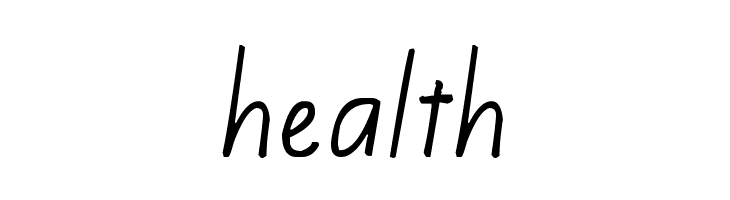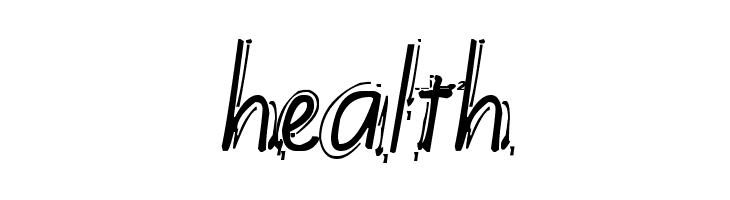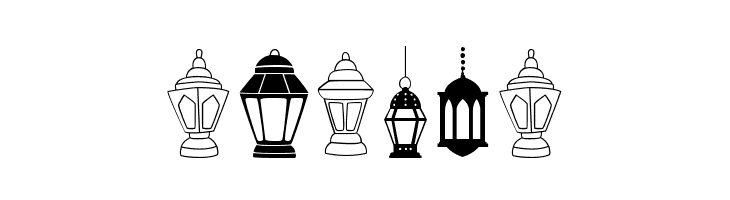
( Rob Ashcroft - www.facebook.com/pages/Teacher-Resources/130918280284678 )
A casual, handwritten-style font with a school-inspired aesthetic.
( Rob Ashcroft - www.facebook.com/pages/Teacher-Resources/130918280284678 )
A playful, handwritten-style font with bold outlines and dynamic strokes.
( TwoNineFive - Maximillian Limpo )
An artistic Morse code representation using vertical bars.
( Vladimir Nikolic - www.coroflot.com/vladimirnikolic )
A hollow, regular Braille font for visual representation.
( Vladimir Nikolic - www.coroflot.com/vladimirnikolic )
A decorative font with bold characters enclosed in ornate circular frames.
( Woodcutter - woodcutter Manero - www.woodcutter.es )
A bold, playful font with rounded edges and a bubble-like appearance.
( dcoxy - Greg Medina - www.dcoxy.com/ )
A modern, italicized font with sleek, elongated characters and consistent stroke width.
( dcoxy - Greg Medina - www.dcoxy.com/ )
A bold, playful font with thick, rounded edges and a strong outline.
( fotograami Aldousari - @fotograami )
A decorative set of Islamic-inspired lantern illustrations.
A bold, three-dimensional collegiate-style font with strong outlines and shadow effects.